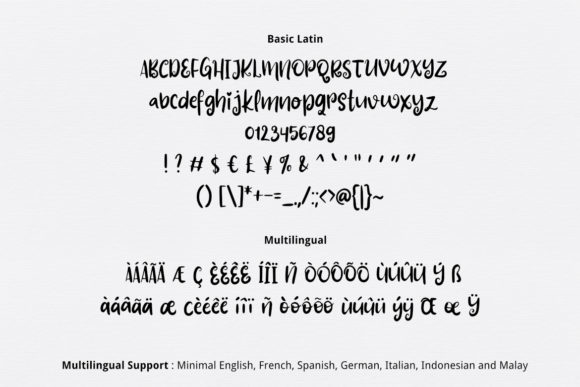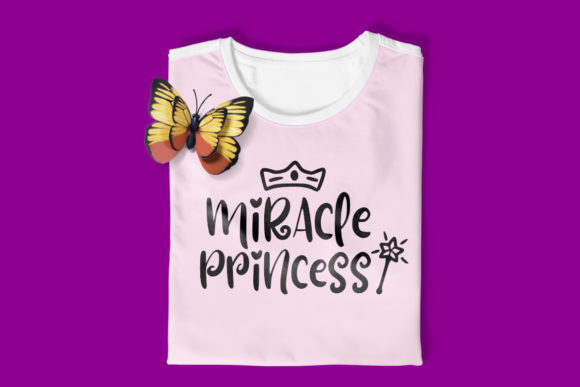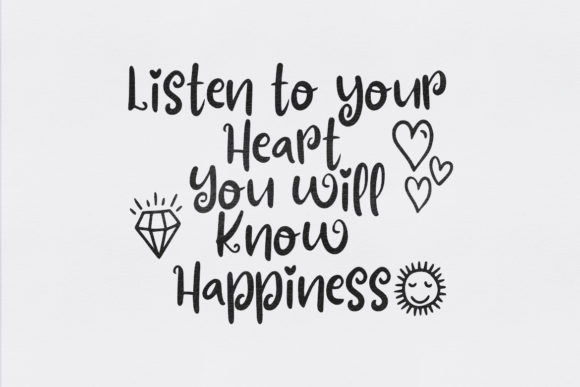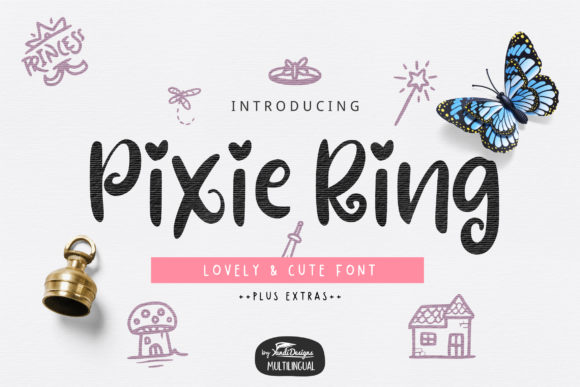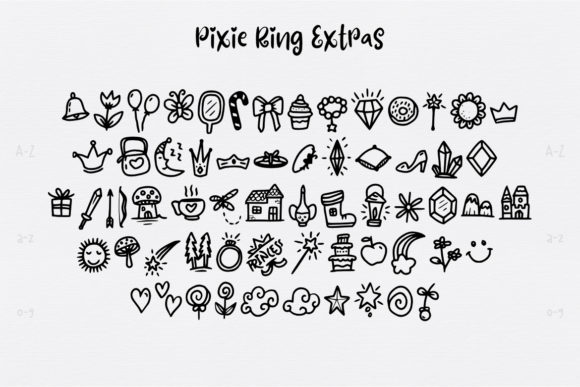
HomeSans Serif FontsPixie Ring Font Sans Serif Fonts Pixie Ring Font FacebookXPinterestWhatsApp Pixie Ring Font 1 of 5 About Pixie Ring Font Pixie Ring is a playfully cute and lovely sans serif font with cute dingbats alternates. It will give you a wide range of designing possibilities, and will make any arts & crafts project stand out! DOWNLOAD NOW People also explored Think Font Penthagon Font Humairah Font February Font Motivating Font Cruliosta Font Claudia Font Josephine Font Sttiiyaa Hiillsa Font 446 0 TagsPixie Ring Font Previous articleApple Juice FontNext articleGabriely Extra Black Font LEAVE A REPLY Cancel reply Comment: Please enter your comment! Name:* Please enter your name here Email:* You have entered an incorrect email address! Please enter your email address here Website: Save my name, email, and website in this browser for the next time I comment. Personal Use Free Blessed Font Personal Use Free Read more about this font Rionaldo Angelo Personal Use Free Read more about this font Cute Messy Personal Use Free Read more about this font Po Beef Personal Use Free Read more about this font BLOG Free vs Paid Fonts: Why Investing in Premium Fonts Is Worth It Free vs Paid Fonts: Why Premium Fonts Are Worth It in 2025 The debate of free vs paid fonts continues in the design world. While... To increase your work productivity, choose the most readable fonts. Best Fonts for T-Shirt Design – Top 2025 Picks Best Fonts for YouTube Videos: Make Your Thumbnails Stand Out